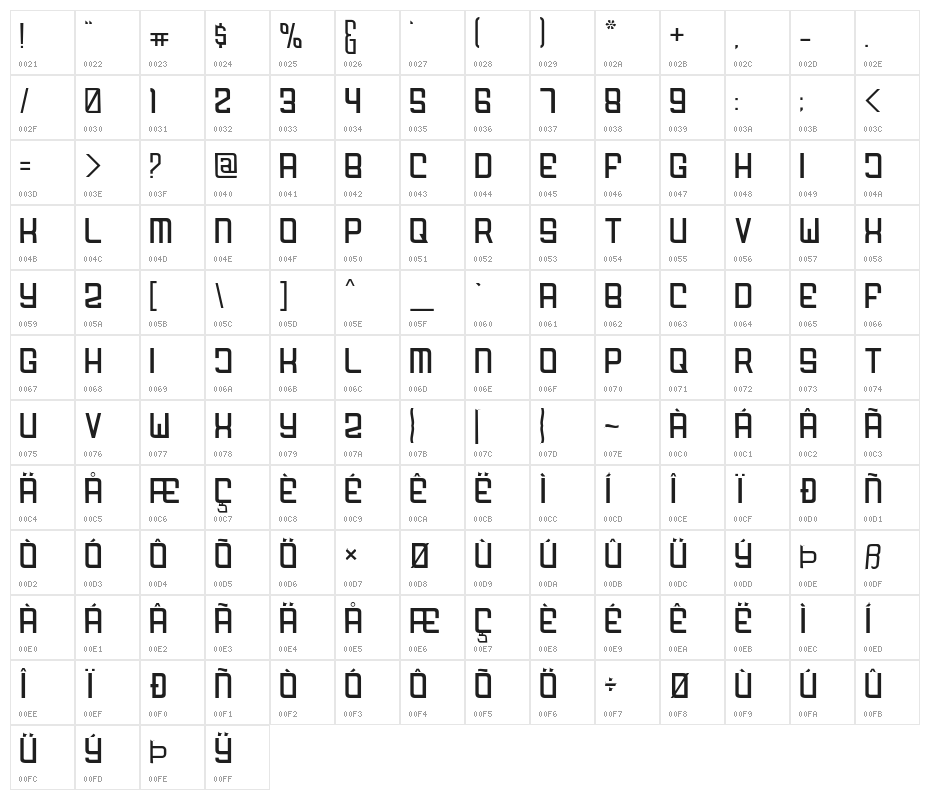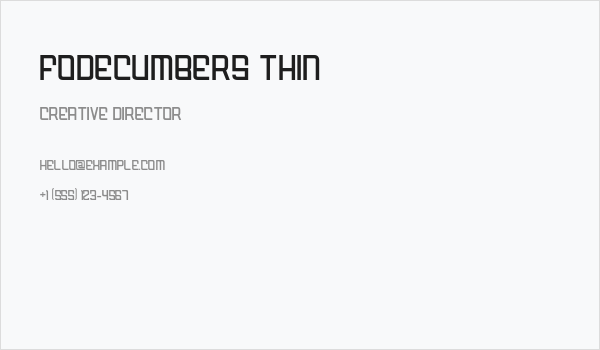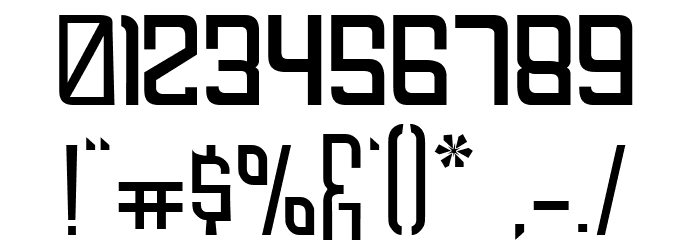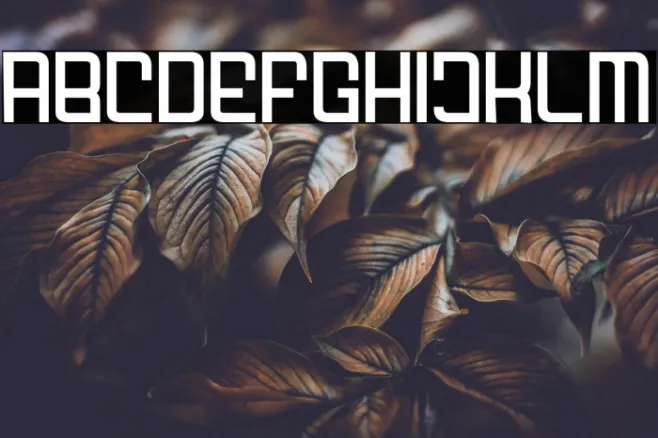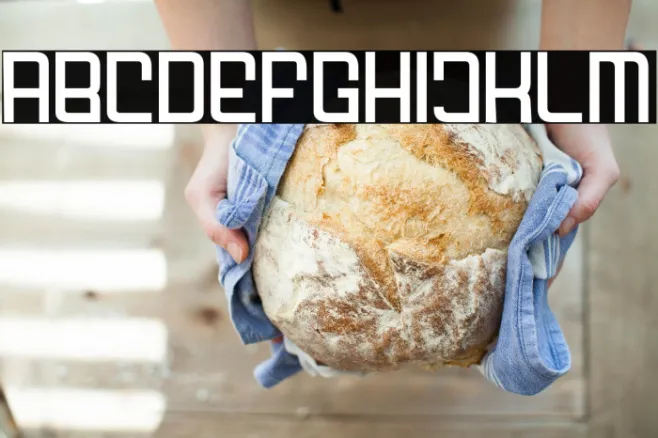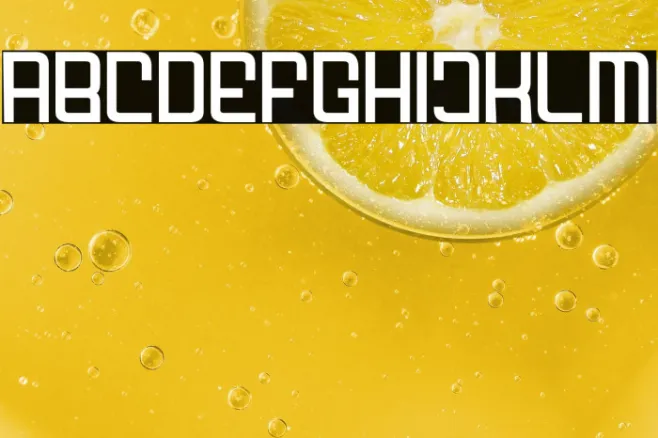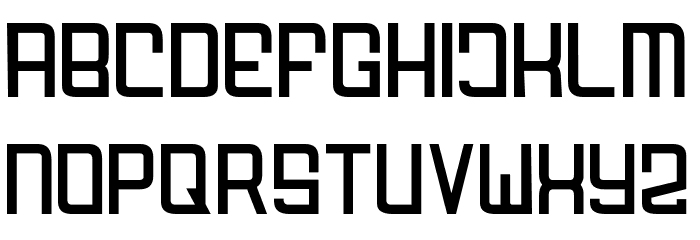
FODECUMBERS THIN Font
FODECUMBERS THIN Description
This font features a modern and geometric design with a distinct, futuristic appeal. The characters are constructed with uniform line thickness, giving it a bold and structured appearance. The uppercase letters are particularly striking, with angular and squared-off edges that create a sense of precision and order. The numerals and special characters maintain this cohesive style, ensuring consistency across all elements. The font's clean lines and lack of ornamentation make it highly legible, while its unique design elements add a touch of sophistication and modernity.
| Use Case | Logos, Headlines, Digital Interfaces |
| Proposed Projects | Ideal for technology branding, sci-fi themed projects, modern logos, and digital interfaces. |